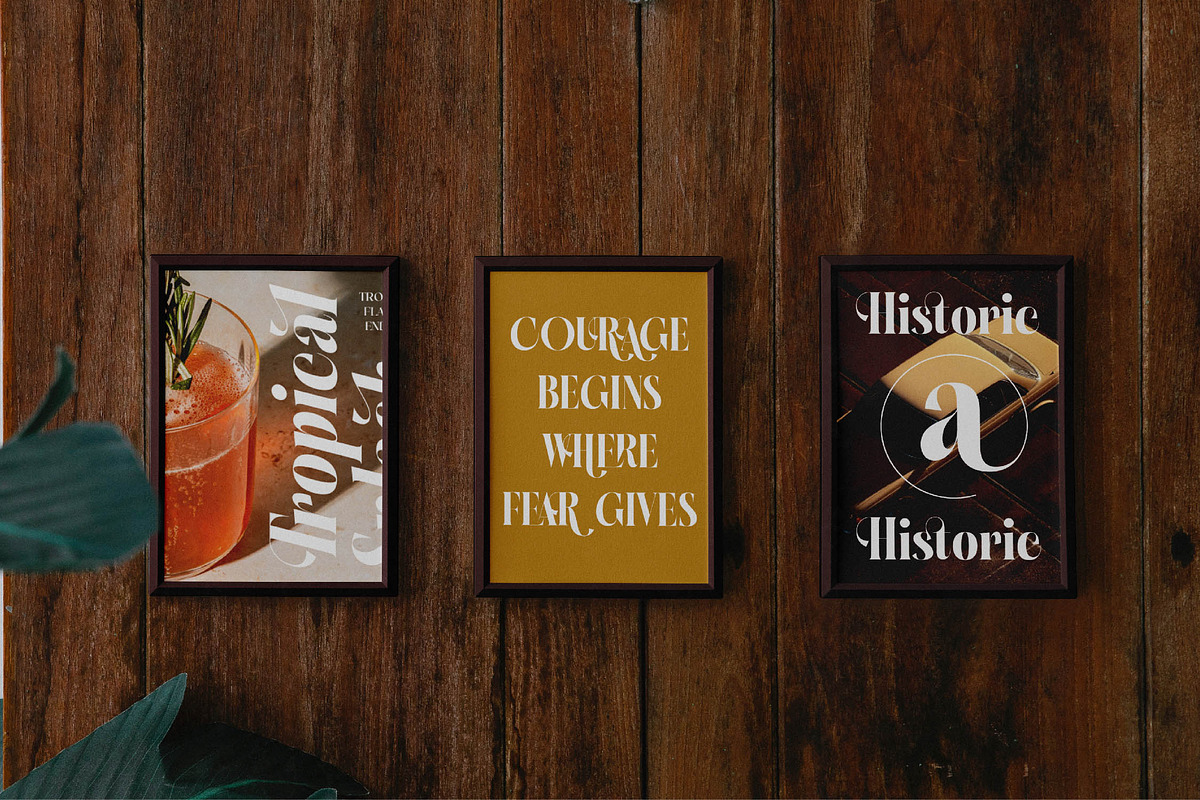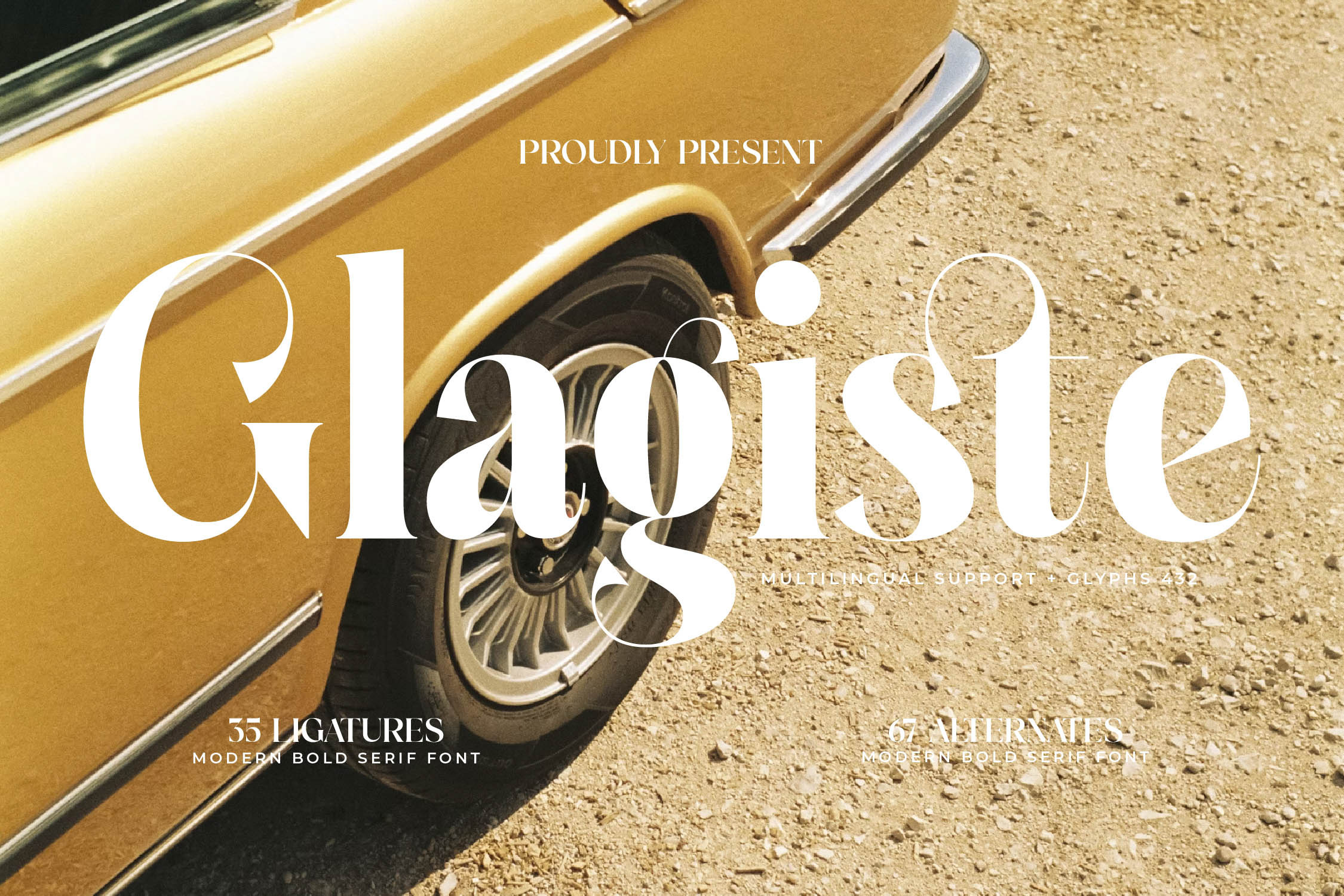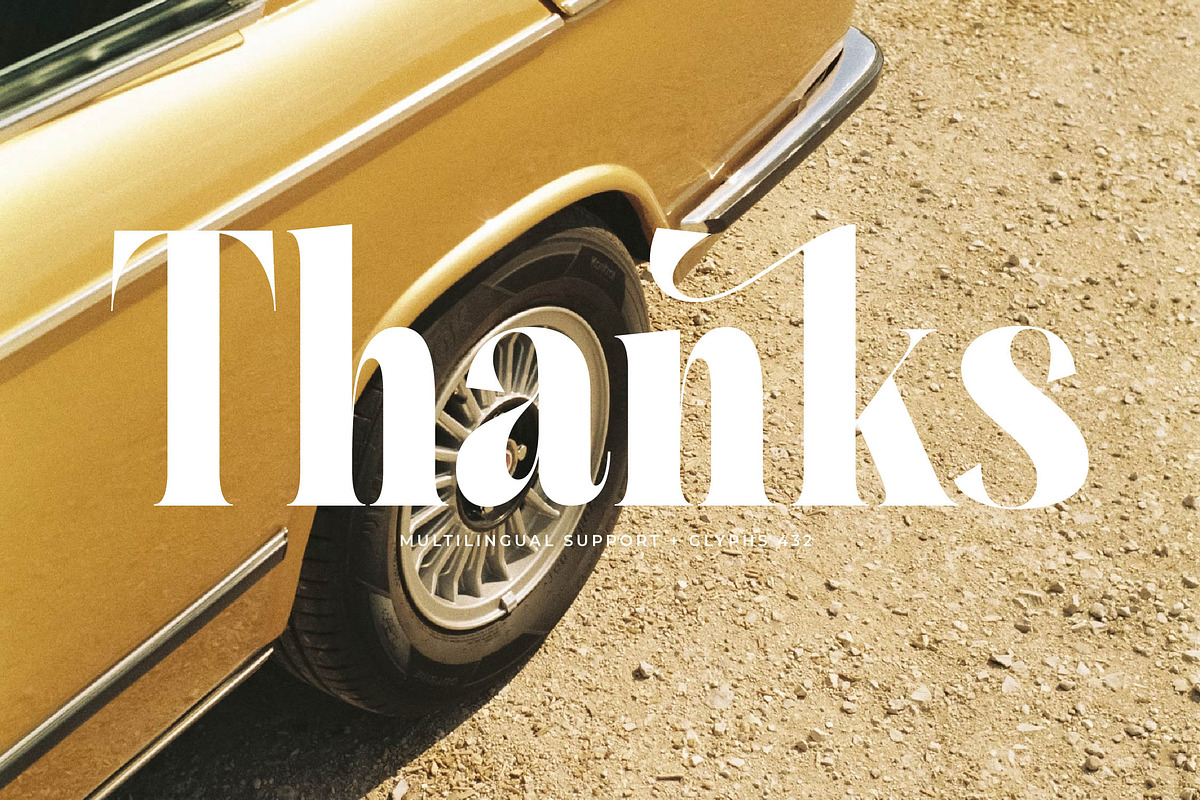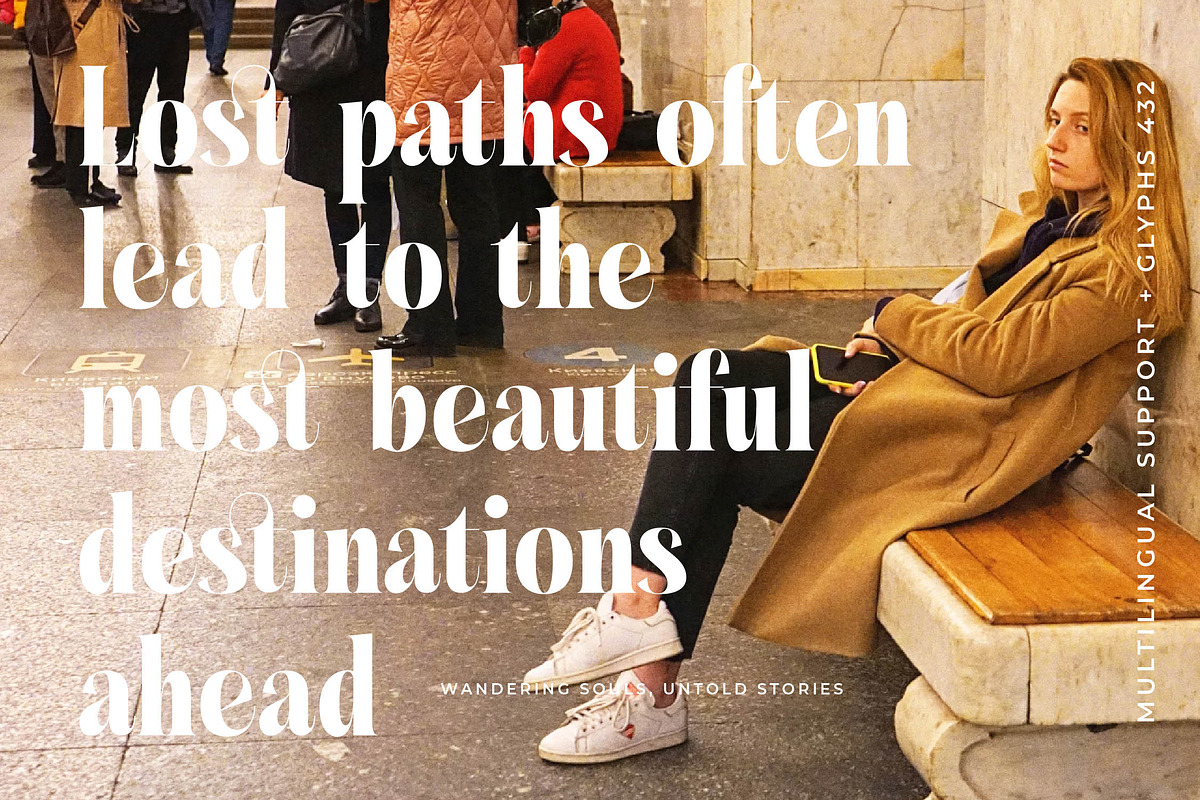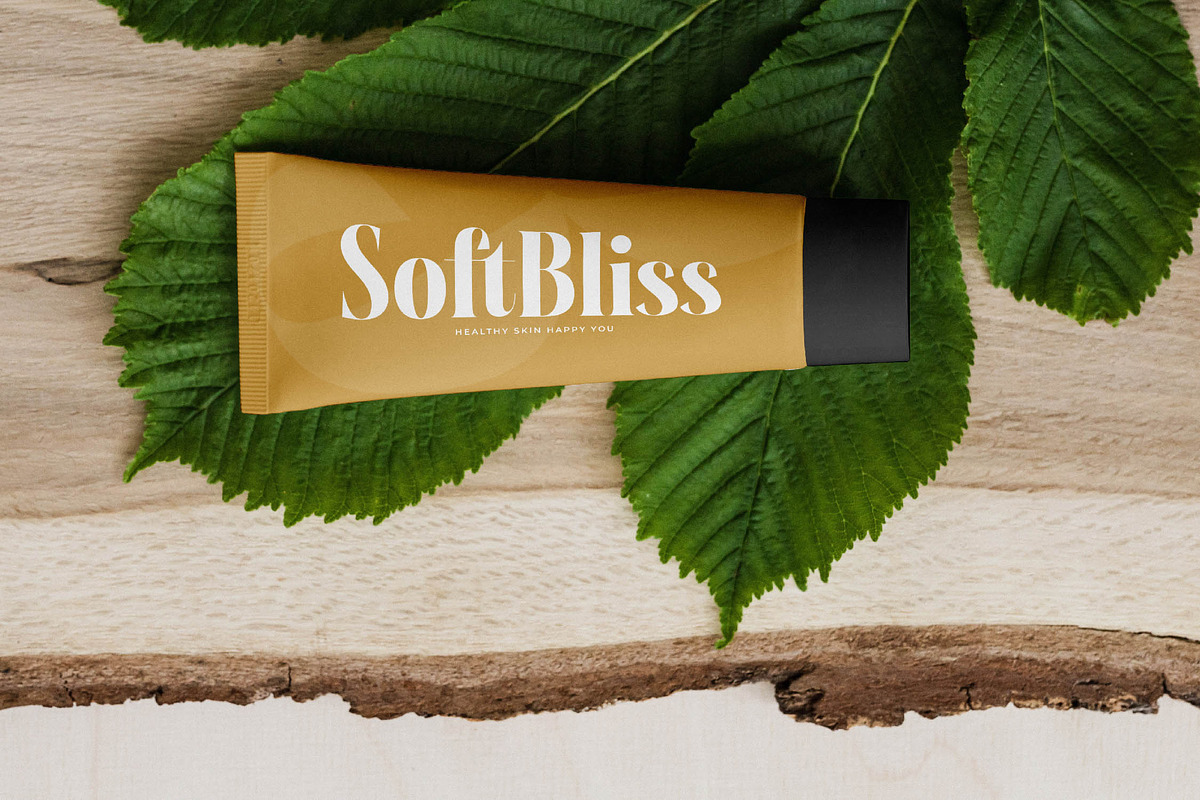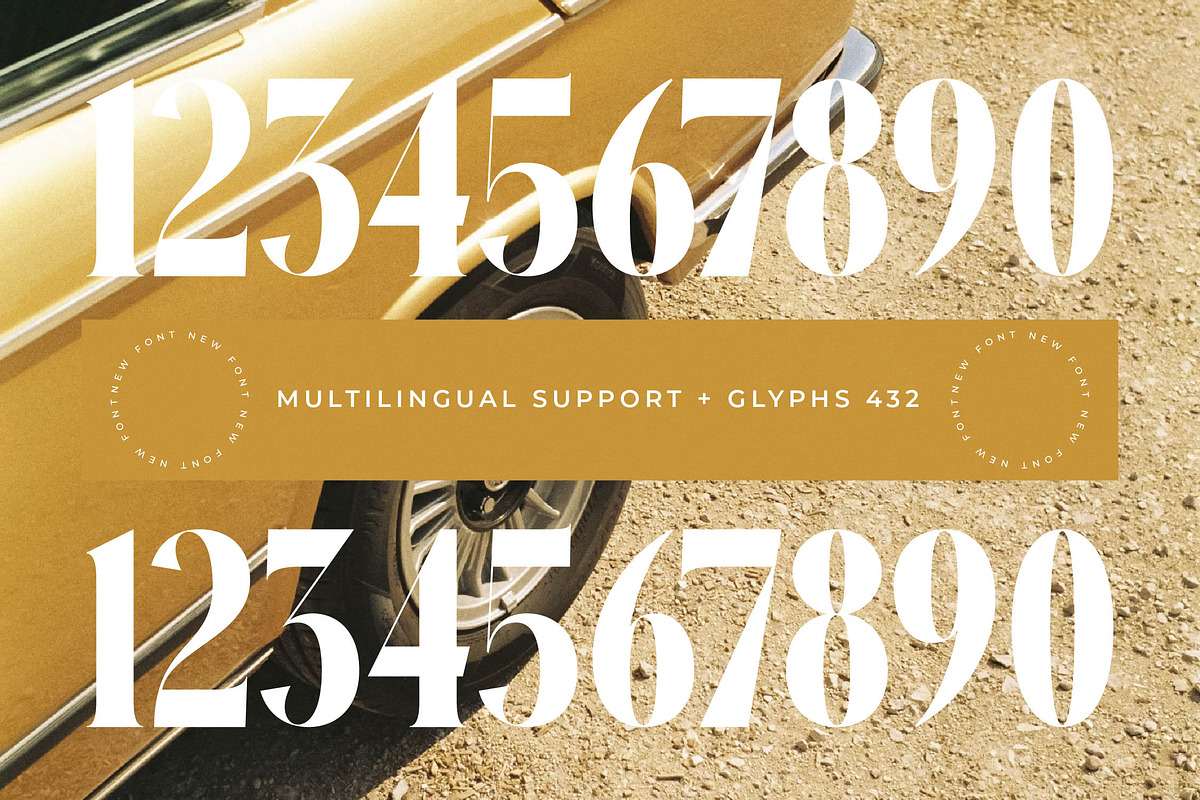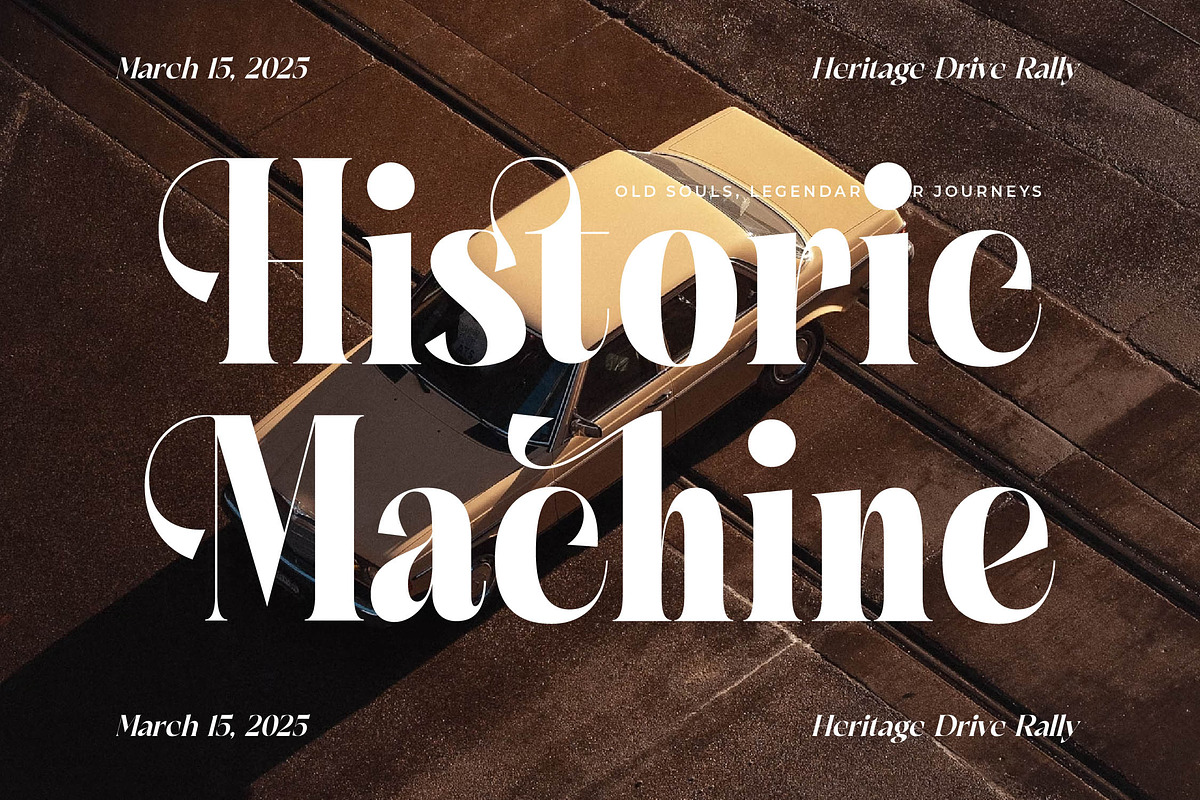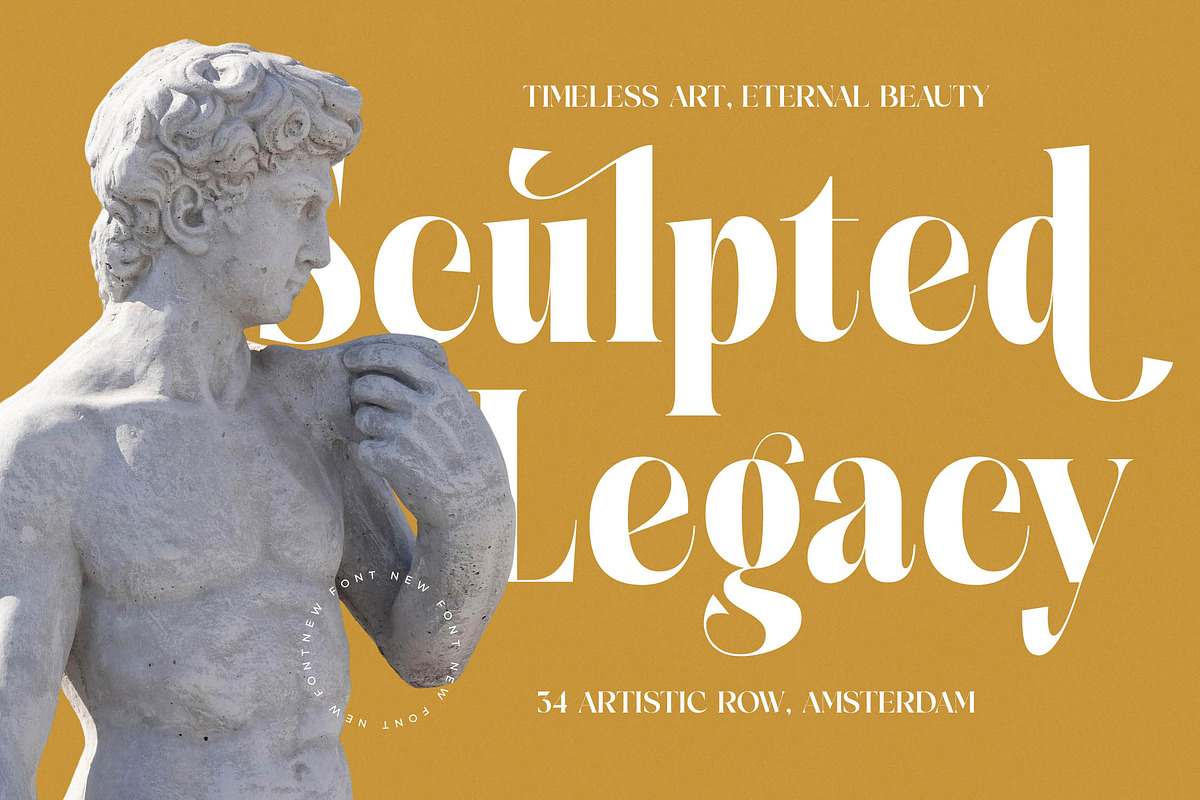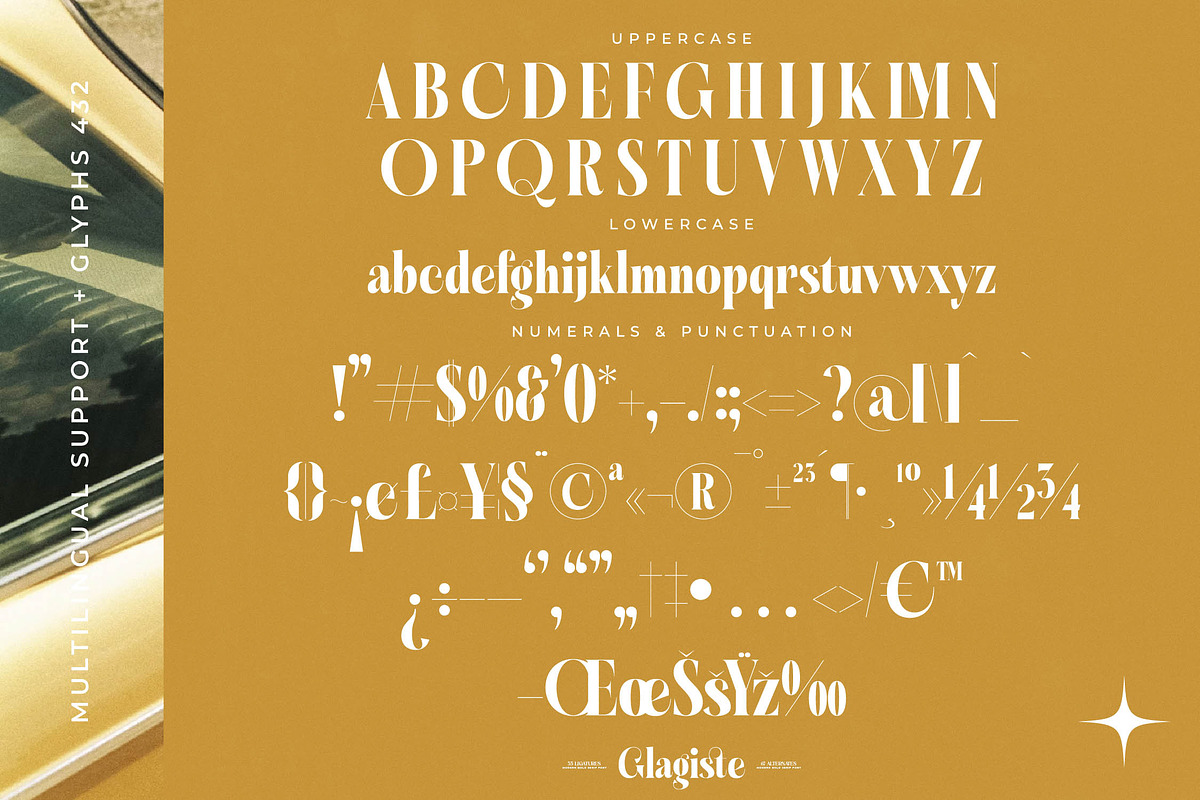
Glagiste - Modern Bold Serif Font
Step into a world of timeless elegance and bold character with Glagiste, a typeface designed to command attention and evoke a sense of high-end sophistication. This font transforms every word into a visual masterpiece, blending classic serif roots with a contemporary, fashion-forward edge.
Drawing inspiration from the golden era of European cinema and the sun-drenched aesthetic of vintage luxury travel, this font captures a unique atmosphere of nostalgia and modernism. Its curves are reminiscent of classic sports cars and the refined textures of haute couture, making it feel both established and revolutionary.
The personality of this typeface is defined by its striking silhouette and modern serif display qualities that are perfect for creating a luxury typography experience. With its high-contrast serif strokes, it offers a distinct editorial font feel that guarantees a massive branding impact for any project requiring a premium touch.
Aligning perfectly with the current modern serif trend, this typeface is a must-have for designers looking for editorial display fonts that break away from the mundane. Its character-driven typography ensures that your work remains at the forefront of contemporary design aesthetics, appealing to a sophisticated global audience.
This versatile tool is the ideal choice for high-stakes logo design and comprehensive branding identity systems that need to stand out. From high-end editorial layouts and luxury packaging to romantic wedding stationery and sleek fashion lookbooks, it adapts seamlessly to diverse creative needs.
The font is packed with creative power, featuring over 55 unique ligatures and 67 alternates that allow for endless customization. It also includes decorative swashes and full multilingual support with over 482 international characters, ensuring your message translates beautifully across many languages.
- Ligature 35 Alternate 67